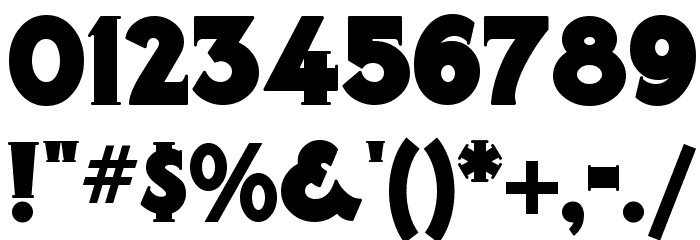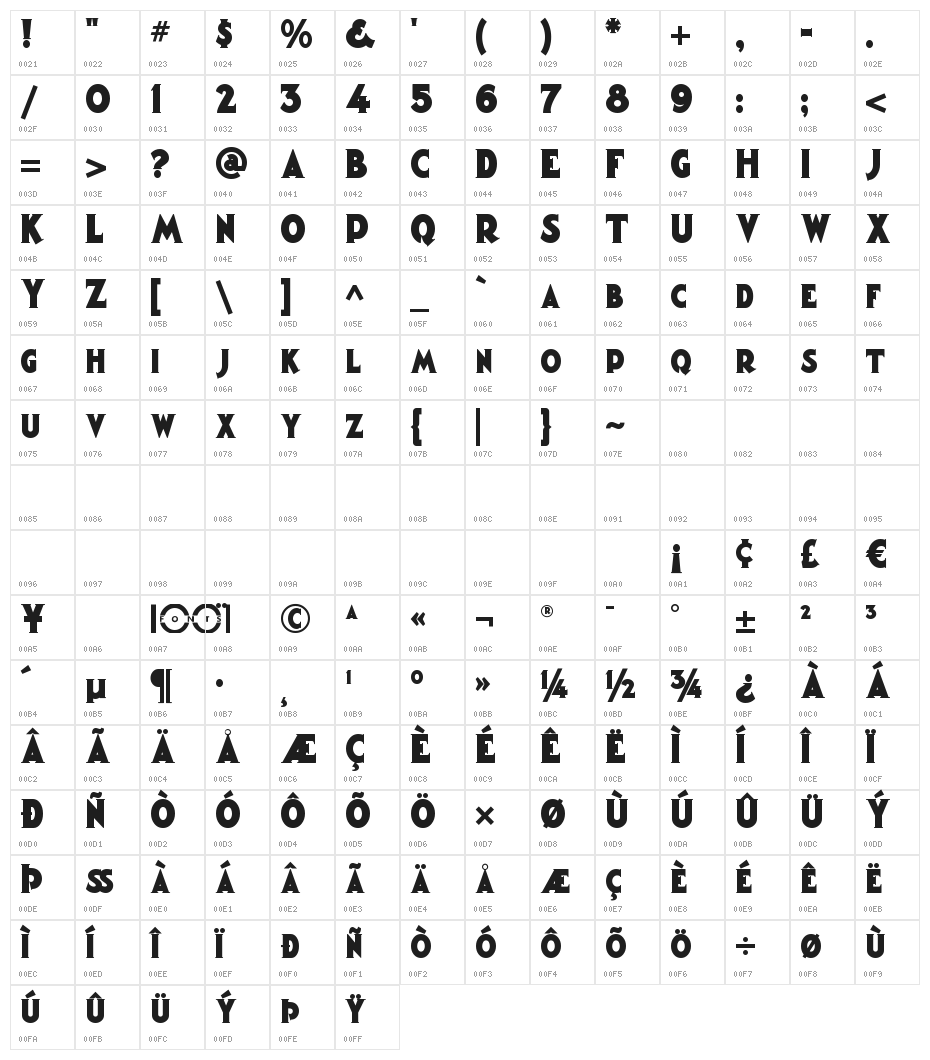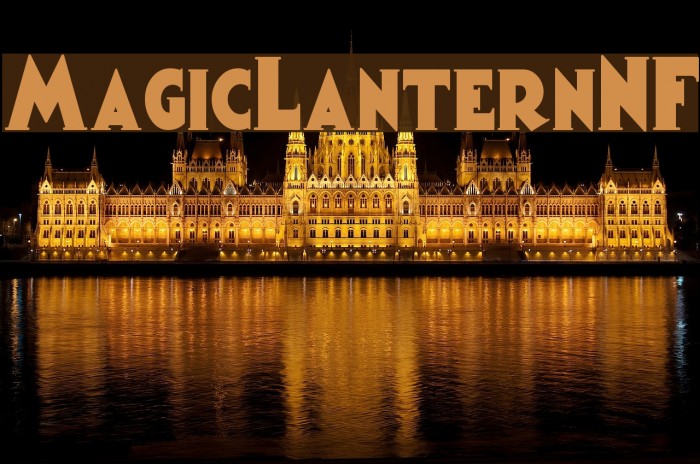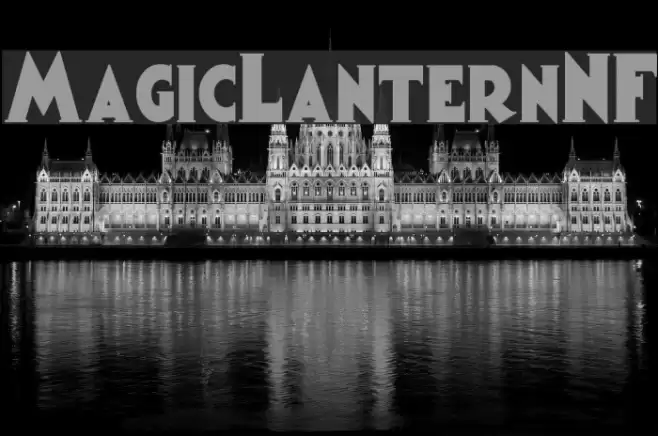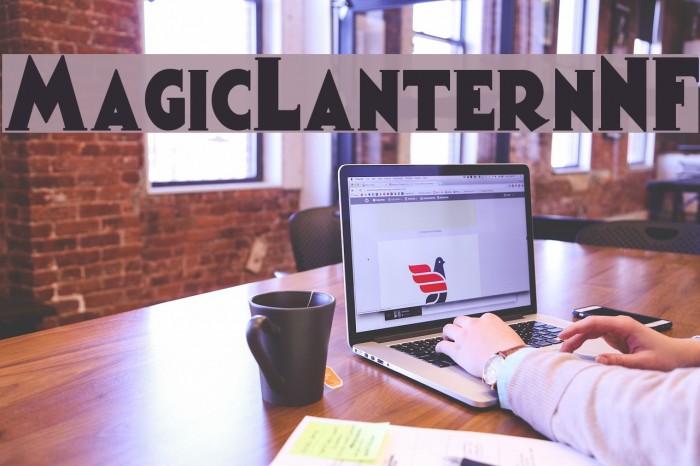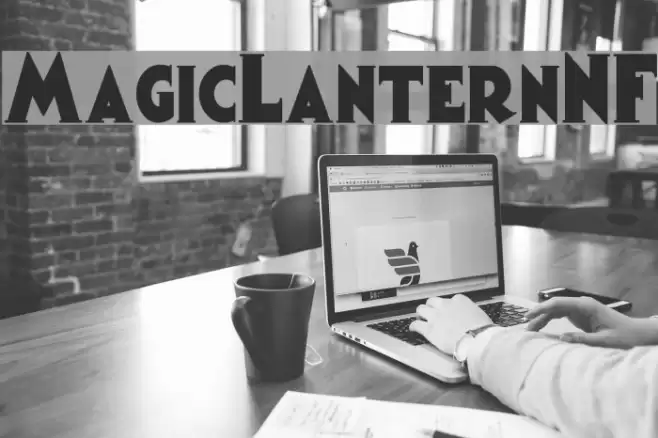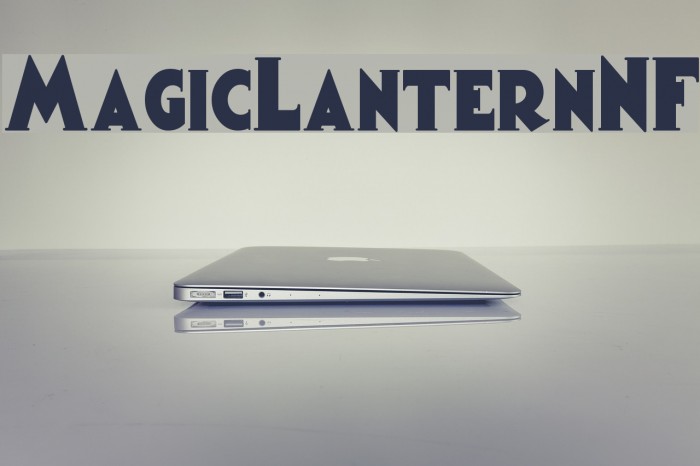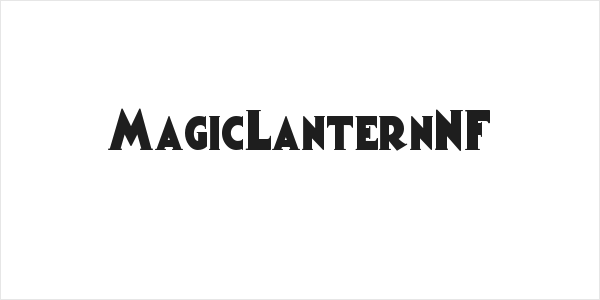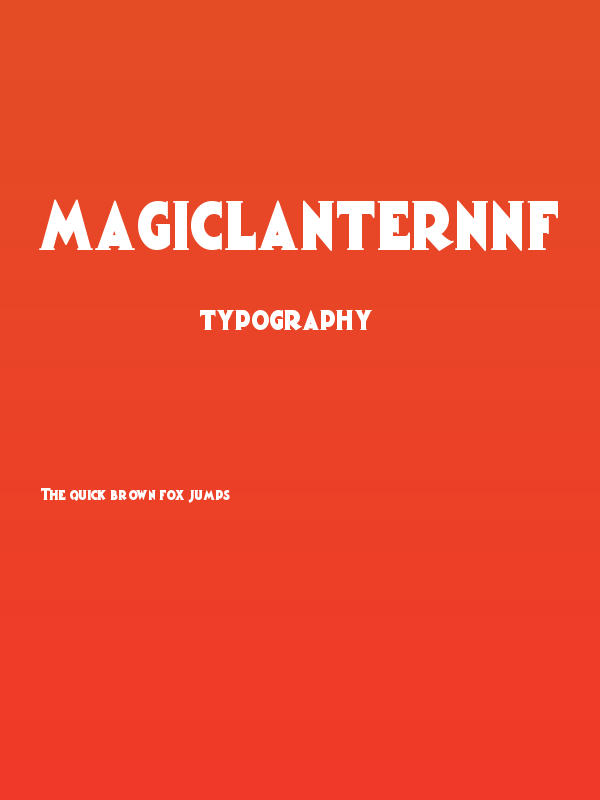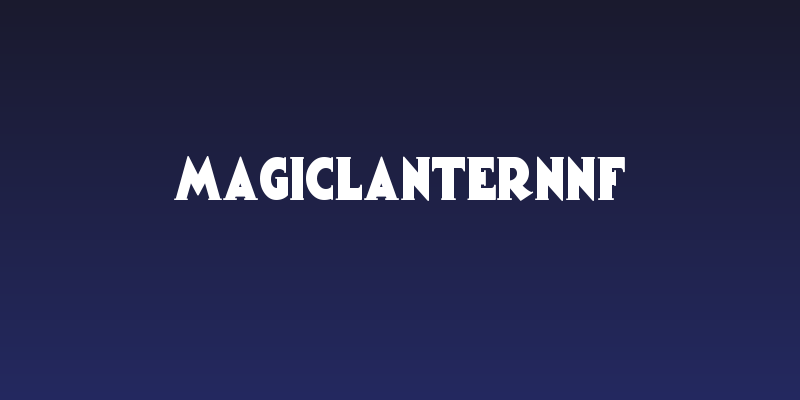
MagicLanternNF Font
MagicLanternNF Description
This font features bold, geometric letterforms with a distinct, playful style. The characters are characterized by their thick strokes and sharp angles, giving them a strong presence. The uppercase letters are particularly striking, with a slight slant that adds dynamism. The lowercase letters maintain the same boldness, ensuring consistency across text. Numbers and special characters are equally bold, with unique shapes that enhance the font's decorative appeal. This font's design is reminiscent of vintage signage, making it ideal for projects that require a touch of nostalgia and boldness.